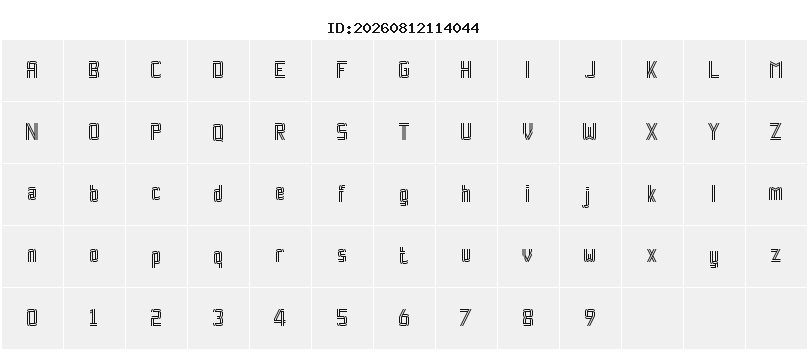
Rock Paper Scissors Preview
• Font Name: Rock Paper Scissors
• Full Font Name: RockPaperScissors-Regular
About Rock Paper Scissors.otf
Rock Paper Scissors.otf is a modern, elegant sans-serif font designed for ultimate readability and visual harmony. Perfect for branding, headlines, web design, and print materials.